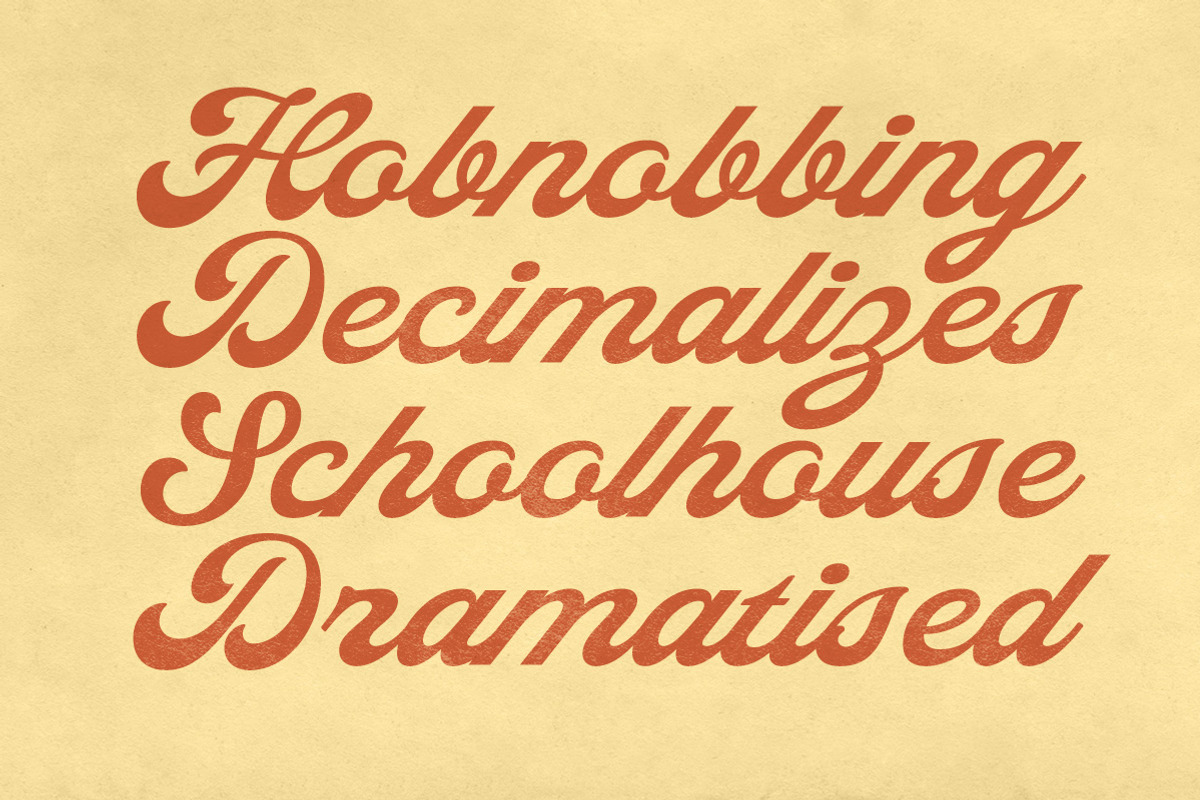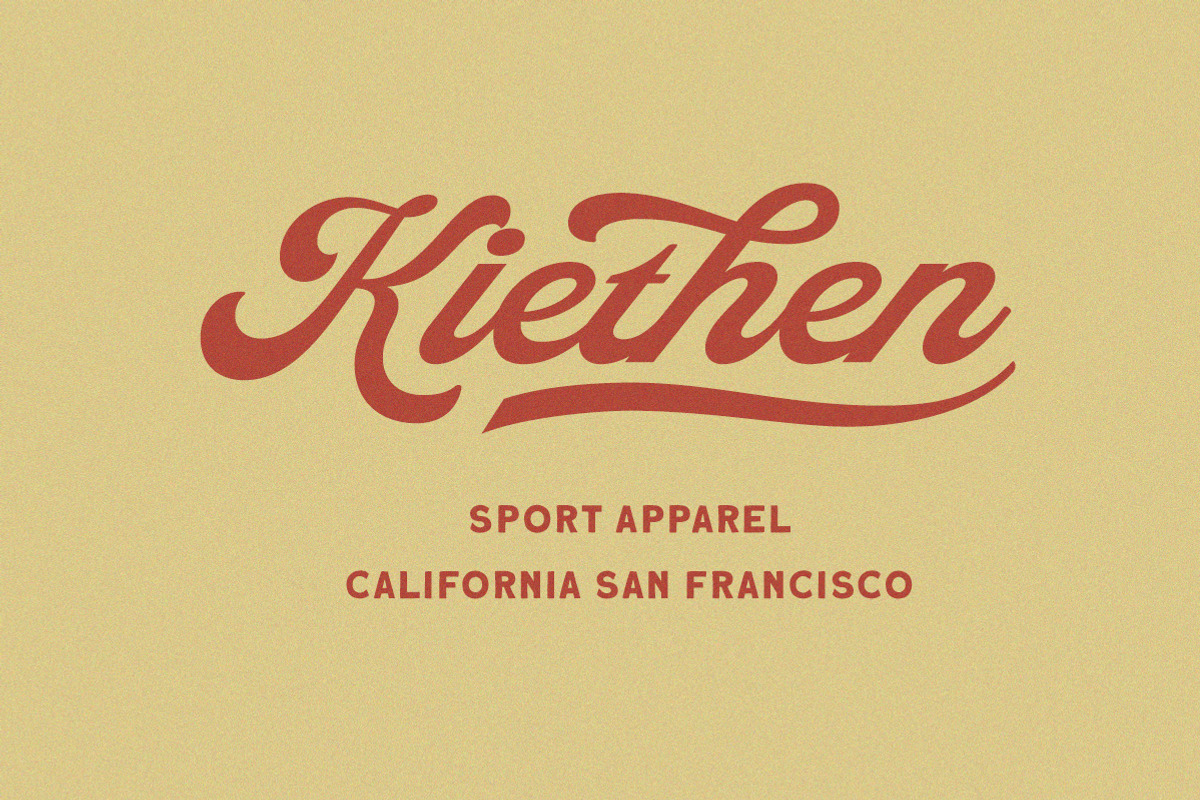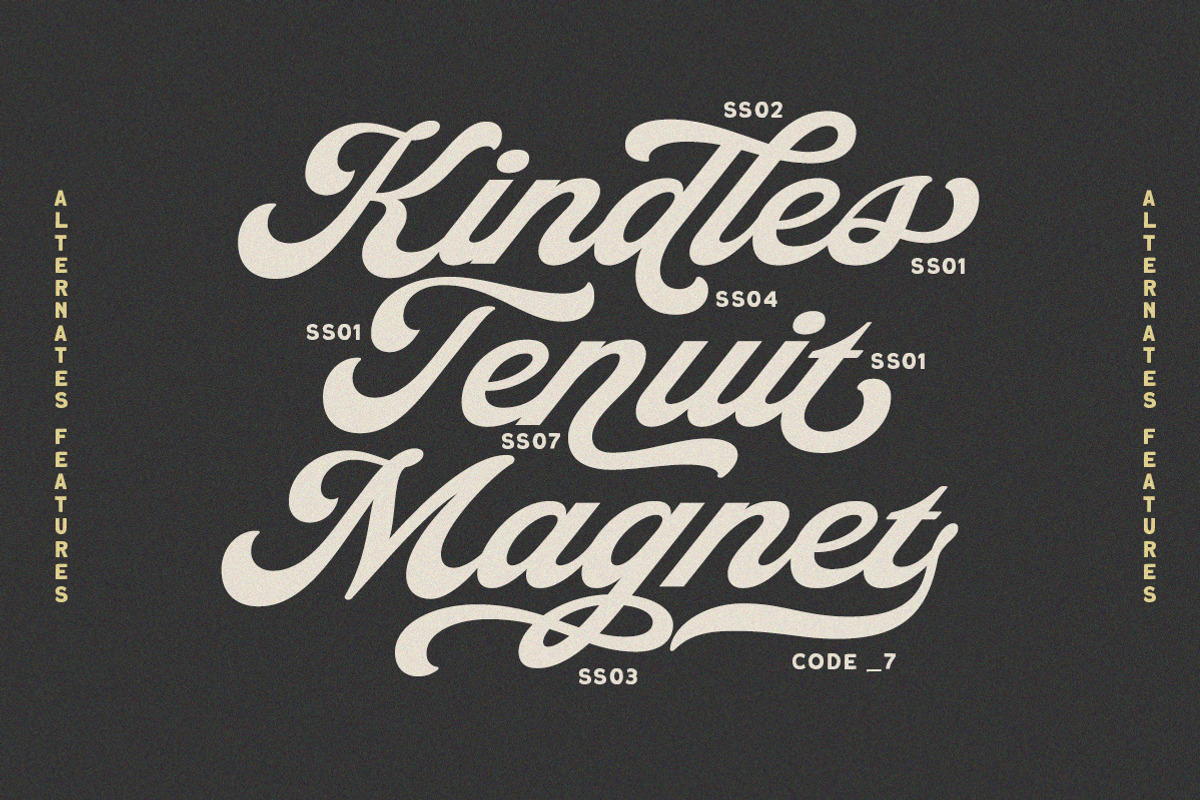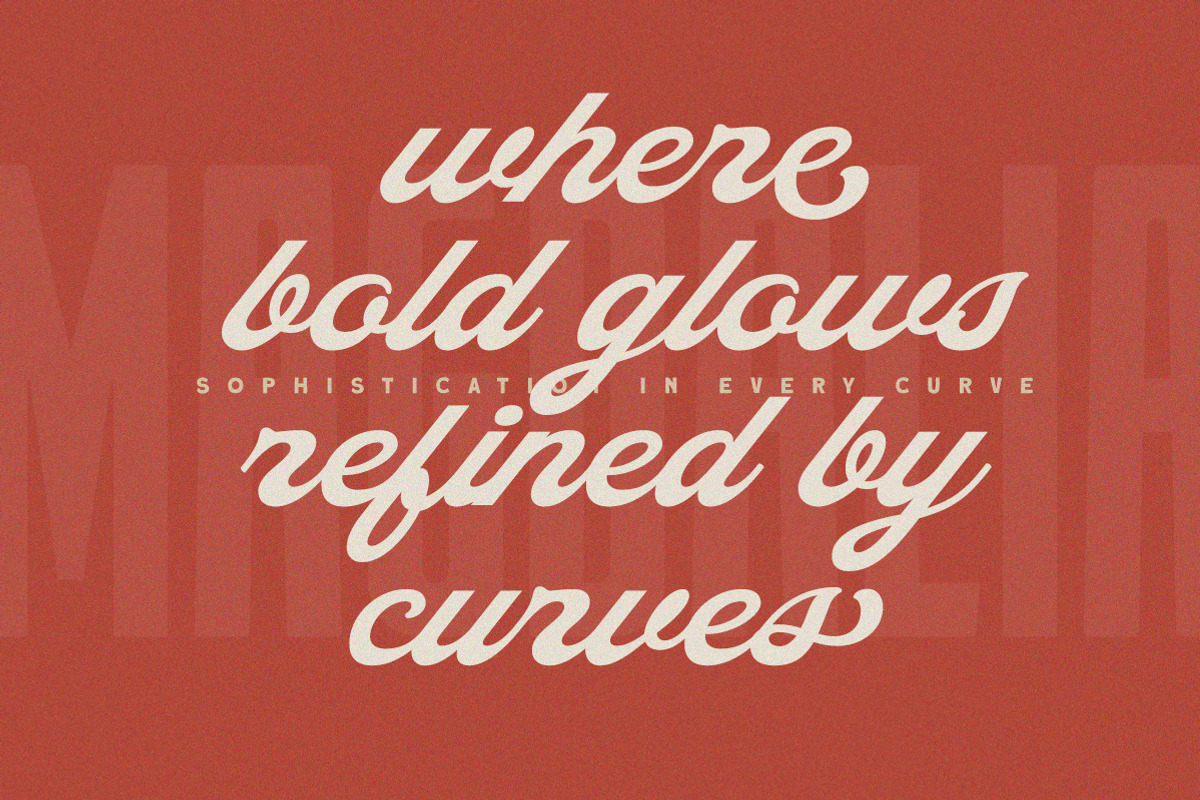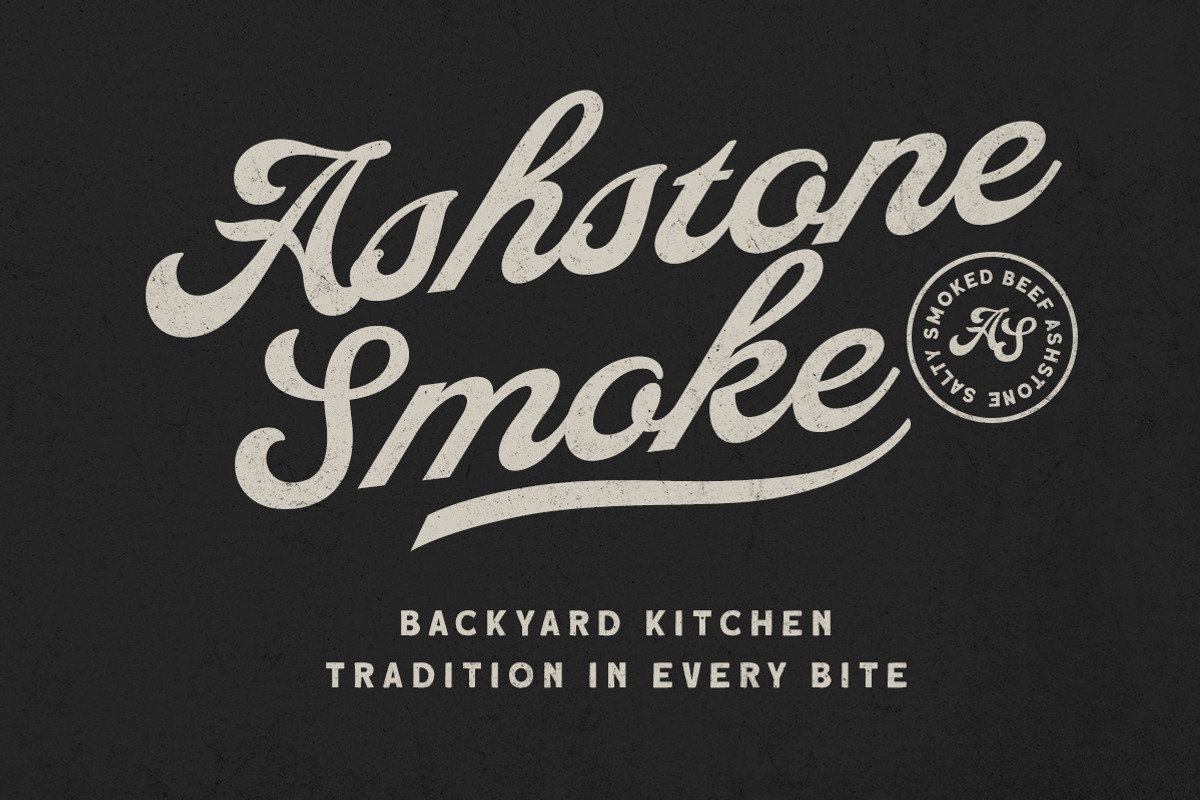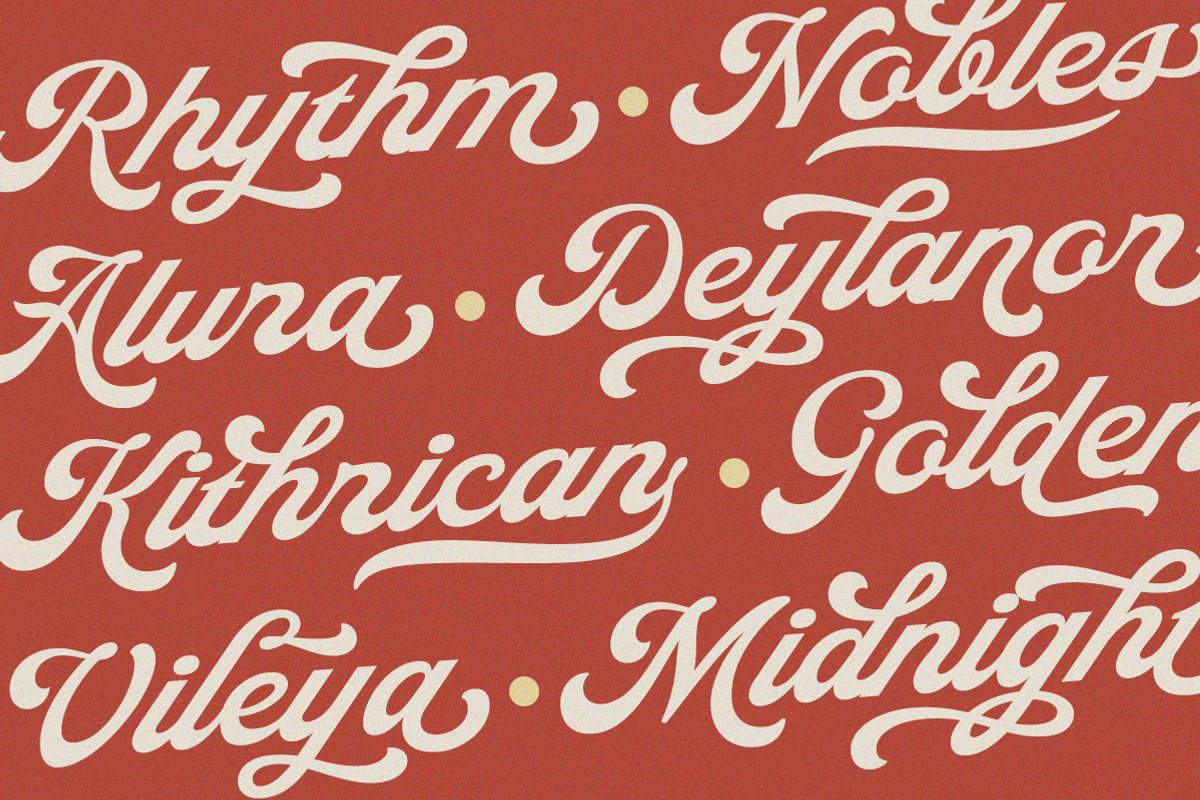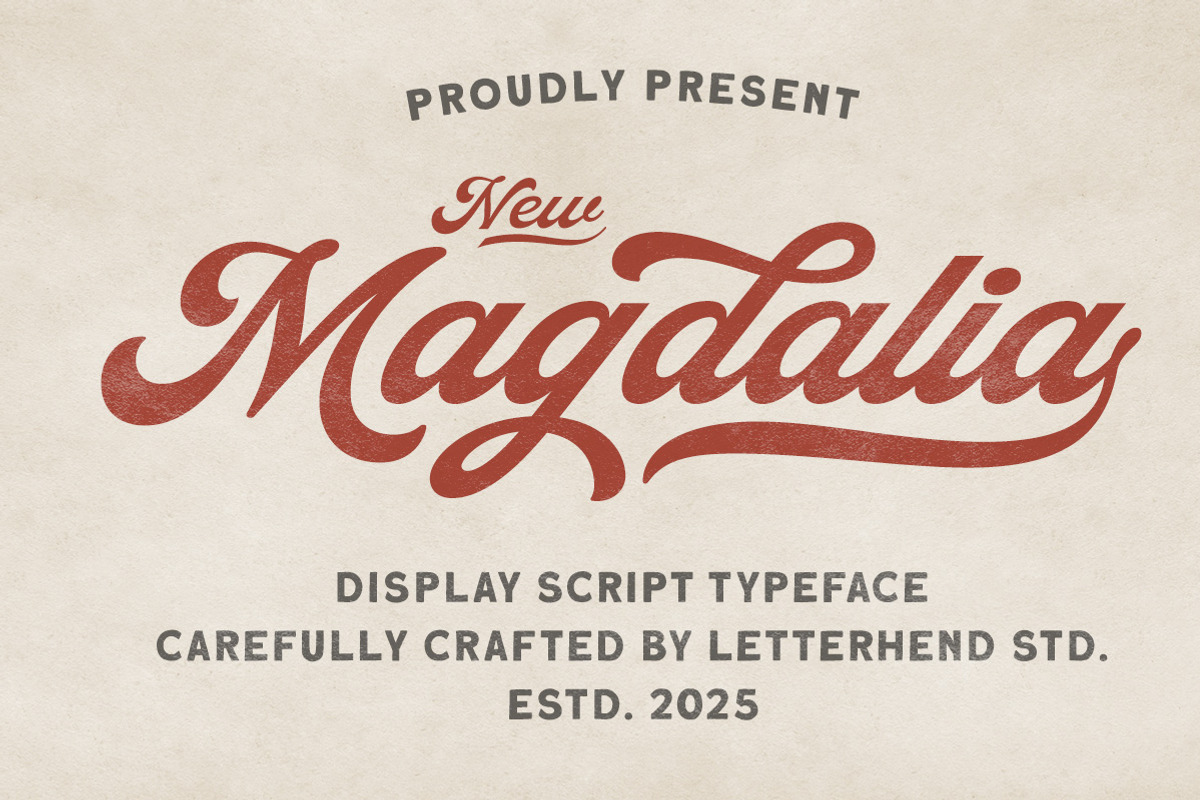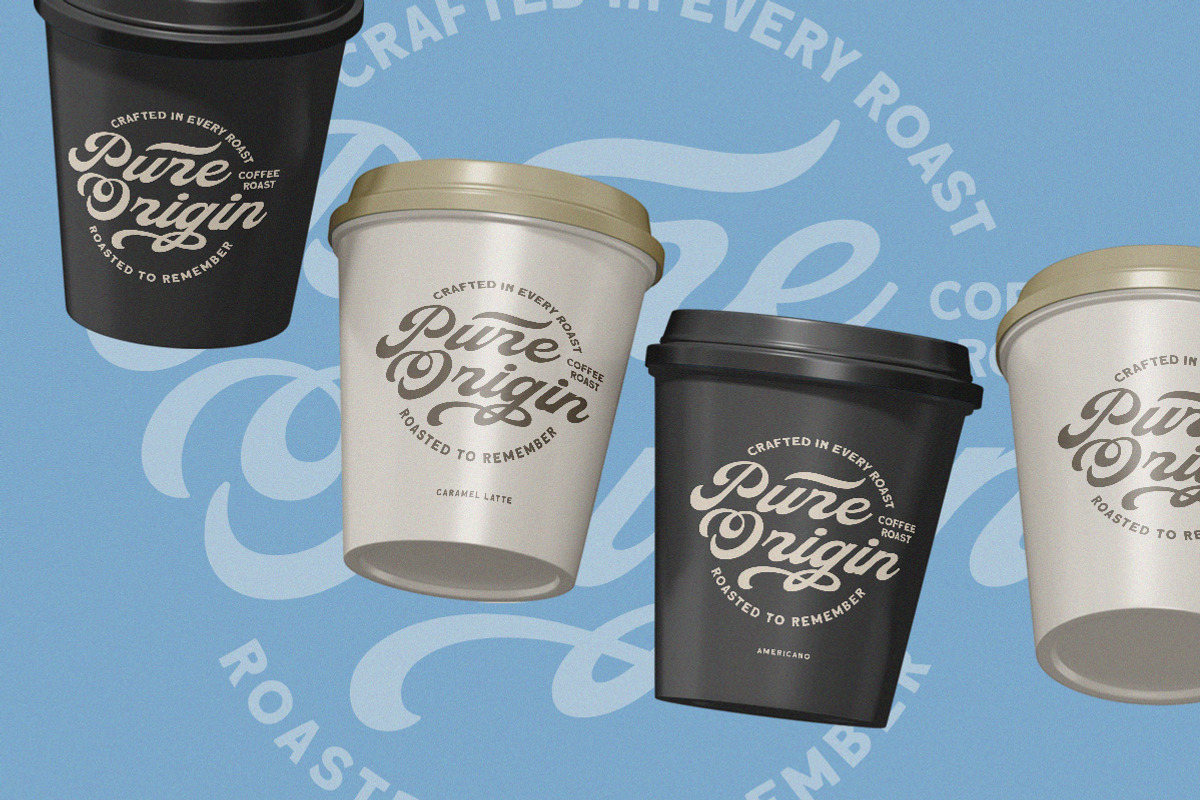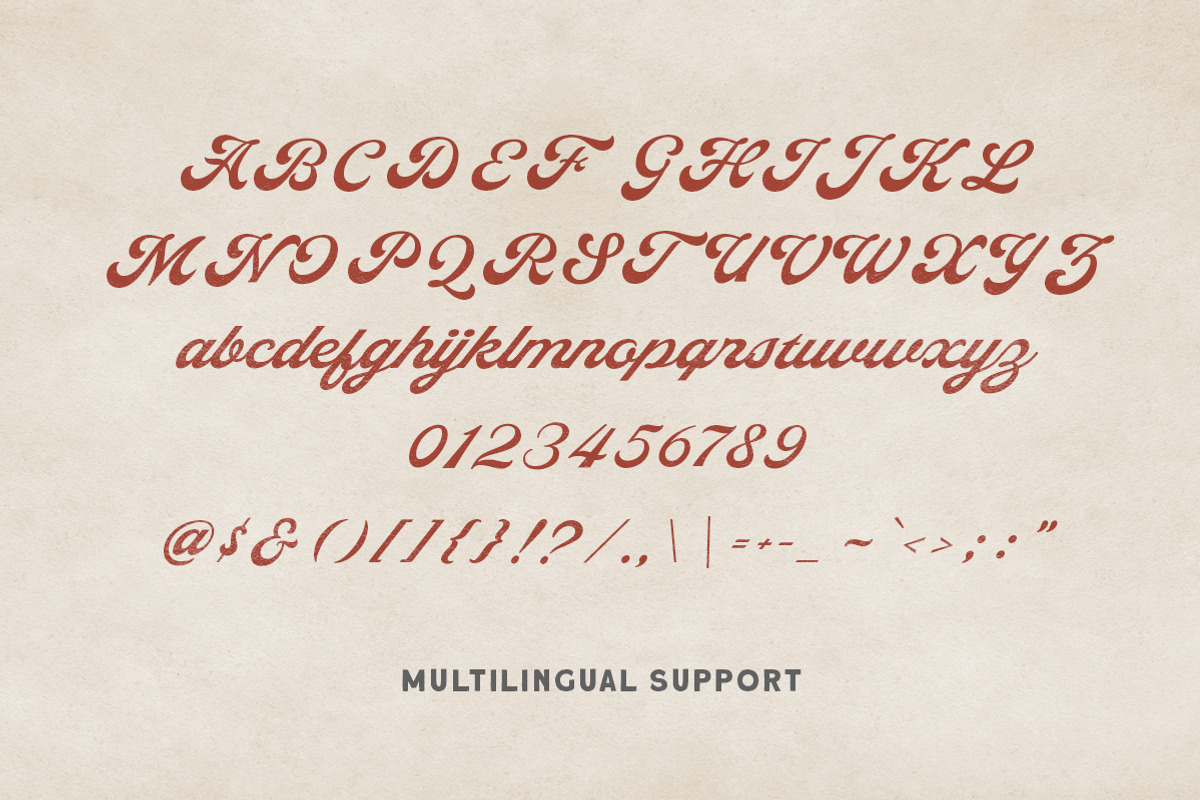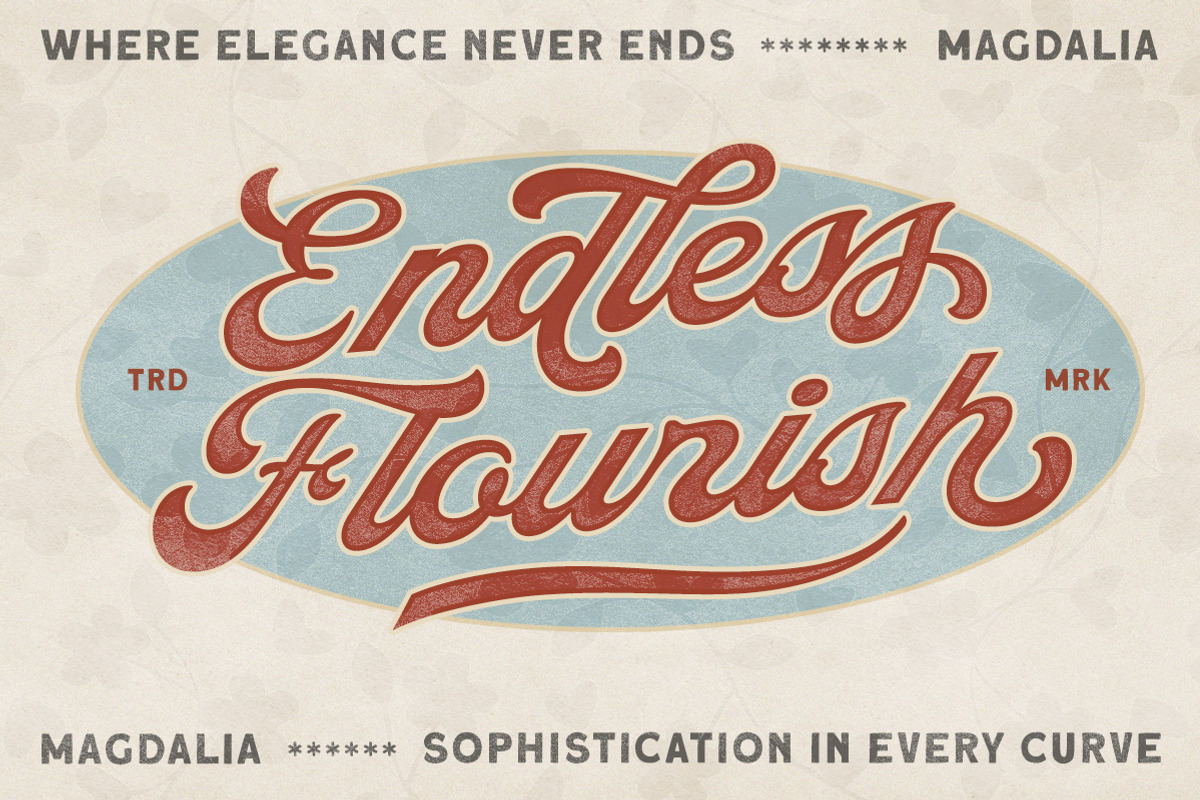
Magdalia Vintage Bold Script
Magdalia is a vintage display script font that blends retro charm with a modern handcrafted touch. Its flowing strokes and stylish swashes make it perfect for logos, packaging, posters, apparel, or any design that wants to feel strong, classic, and full of personality. Features : - Uppercase & lowercase - Numbers and punctuation - Alternates & Ligatures - Multilingual Support - PUA encoded Not sure if our font is right for your project? You can try it first with our "Type Tester" on the website, where you can preview all glyphs and special characters before buying. Check out this quick guide: www.letterhend.com/blog/using-alternate-character-in-type-taster/ If you encounter any technical issues, please refer to our QUICK HELP, available at this link: For feedback and any other question, please contact our support team at For business collaboration inquiries, please contact us at . We'll be happy to help you!